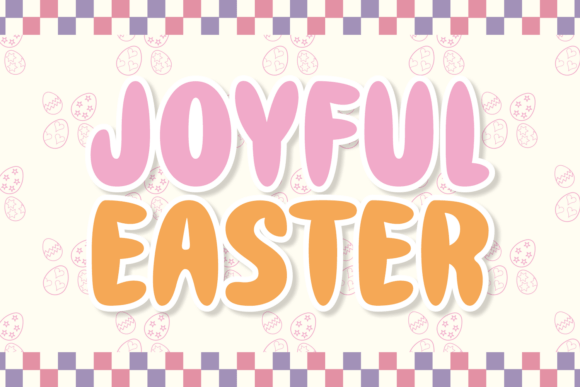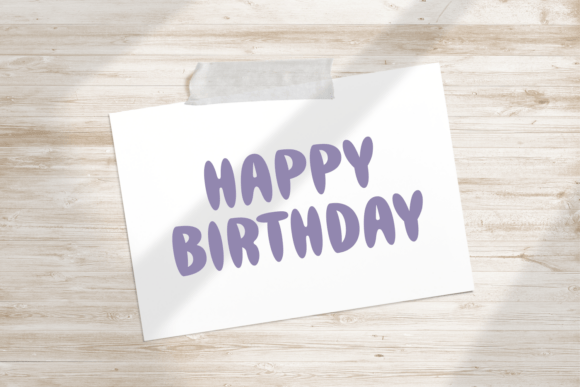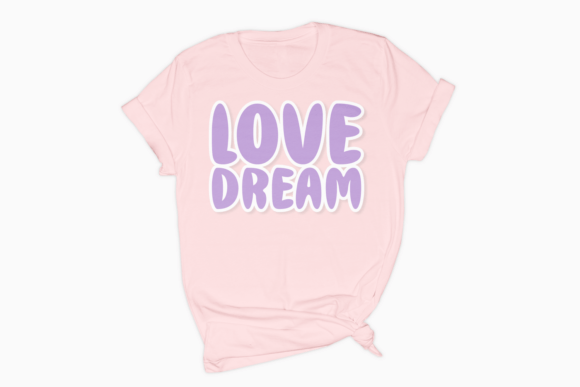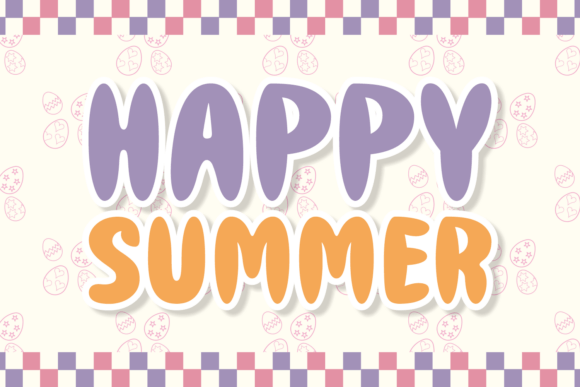
Discover the Whimsical Charm of Big Love Easter Font
As designers, we’ve all been there – stuck on a project, searching for that perfect font to bring our vision to life. I recall working on an Easter-themed branding project, determined to find a font that embodied the warmth and playfulness of the season. That’s when I stumbled upon the Big Love Easter font, a whimsical display font that instantly captured the essence of spring and Easter. In this article, we’ll dive into the world of Big Love Easter, exploring its unique features, and how to make the most of this beautiful font.
A Personal Review: What I Love About Big Love Easter
Here’s what makes Big Love Easter a standout font:
- ✨ Whimsical and playful aesthetic: The font’s bunny-inspired design and Eastern European accent make it perfect for Easter-themed projects.
- ✅ Smooth and crisp outlines: The font’s unique appeal lies in its fluid sophistication and versatility, making it suitable for a wide range of designs.
- 🌸 Perfect for spring and Easter projects: Big Love Easter is colorfully crafted for the season, making it an excellent choice for designs that require a cute and loving touch.
While Big Love Easter is an excellent font, there are a few things to keep in mind:
- 🤔 Limited use outside of Easter/spring themes: The font’s specific design might not be suitable for projects outside of the Easter or spring season.
- ⚠️ Requires careful kerning: As with any font, some kerning adjustments might be necessary to ensure optimal readability.
Big Love Easter was designed with the intention of capturing the whimsical and playful spirit of Easter. The font’s creator drew inspiration from the beauty of spring, the playfulness of bunnies, and the warmth of the season. The result is a font that exudes joy and celebration, perfect for designers looking to add a touch of Easter magic to their projects.
| What is Big Love Easter font best used for? | Big Love Easter is perfect for Easter-themed projects, such as branding, packaging, and invitations. |
Big Love Easter is a beautiful, whimsical font that captures the essence of Easter and spring. With its unique features, versatility, and playful aesthetic, it’s perfect for designers looking to add a touch of magic to their projects. Whether you’re working on a branding project, packaging design, or invitation, Big Love Easter is sure to bring joy and celebration to your designs.